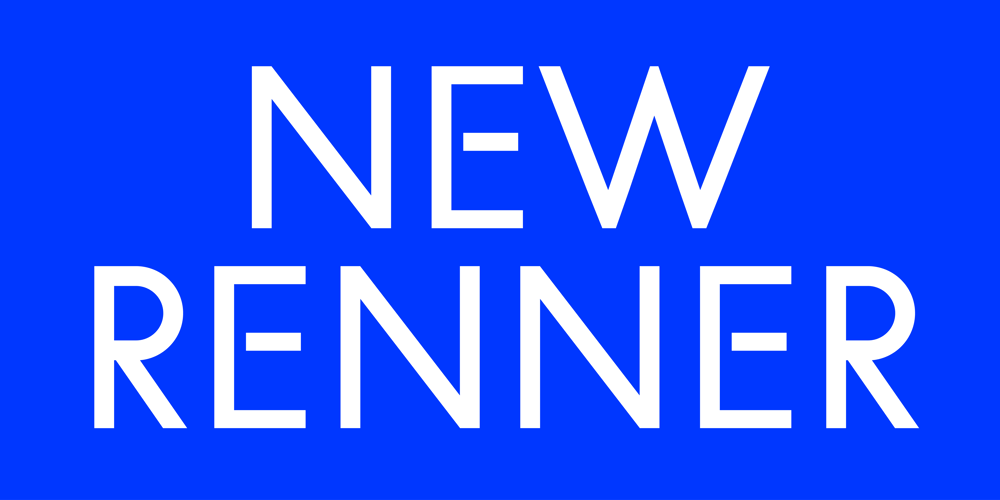
WBP New Renner
WBP New Renner font
WBP New Renner Font Family was designed by Jasper Nijssen and published by Studio Jasper Nijssen. WBP New Renner contains 1 styles and family package options. What if … ? Paul Renner did not scrap his original plan and made a more eccentric version of his (now) famous Futura. What if he made the UPPERCASE to follow suit … What was a thought became a font for you to use. It’s playful and surprisingly legible. So you can use it for headers, body text and everything in between!